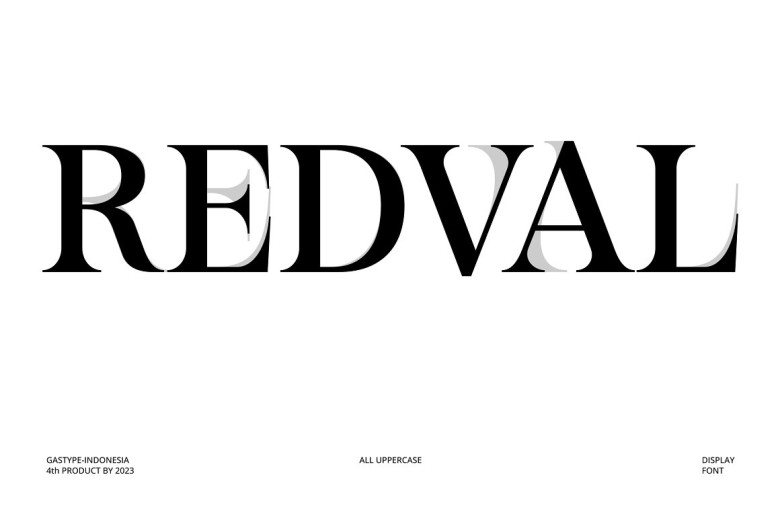
Redval Font
Redval font is an elegant serif typeface perfect for logos, branding, quotes and bold designs. Featuring elegant letterforms with distinguished serifs that add sophistication to any design project, this font comes complete with uppercase letters, symbols, numbers and punctuation characters for use.
Redval Font features multilingual characters to ensure consistency between languages. Alternate letterforms are available via PUA for further design options. Redval Font provides designers and copywriters a visually attractive yet versatile typeface solution.
Redval Serif Font